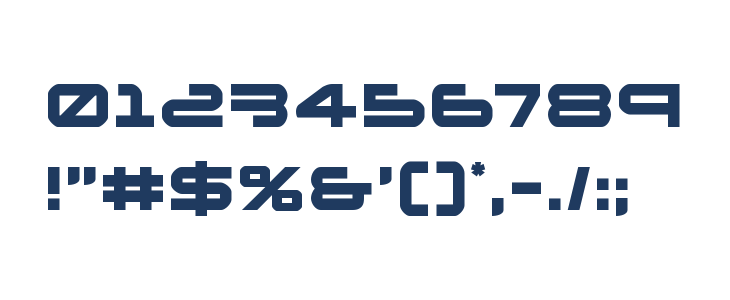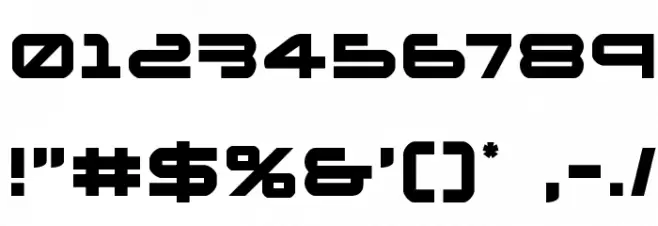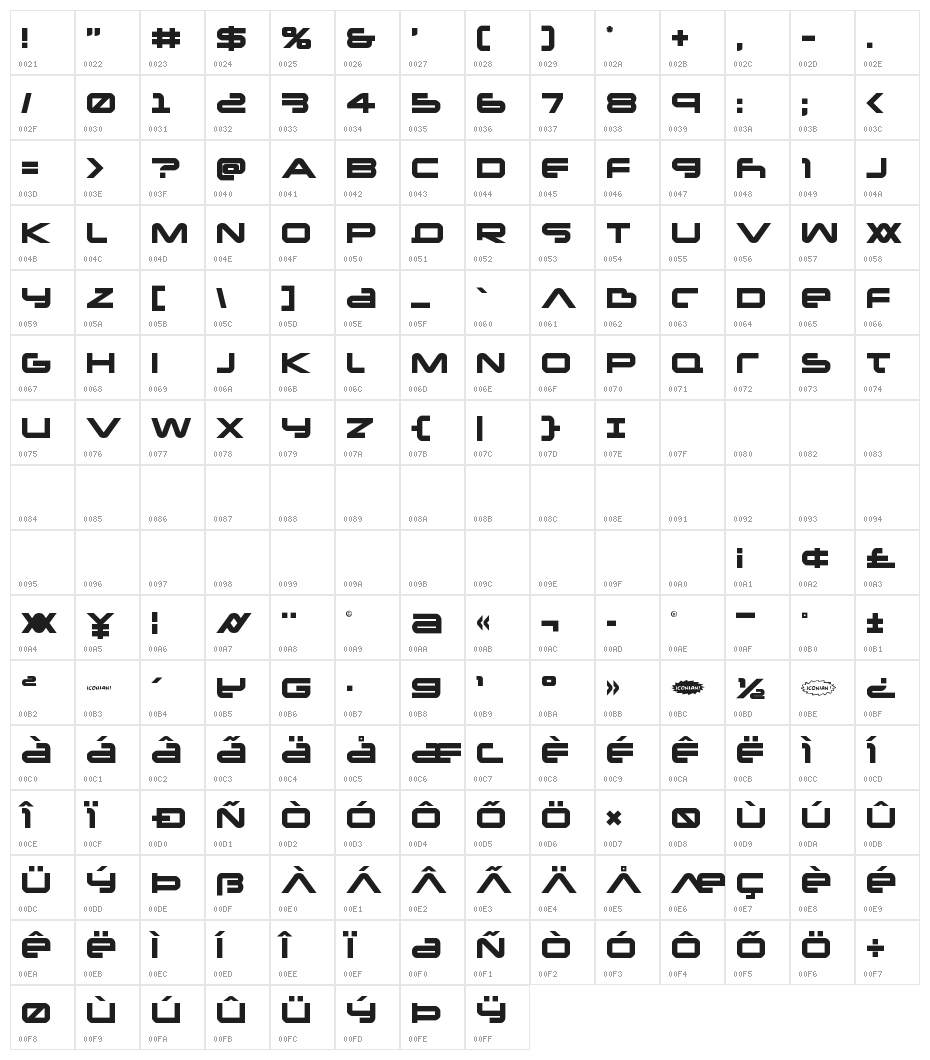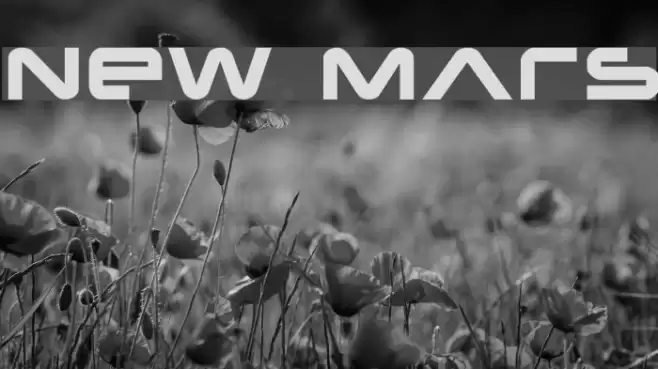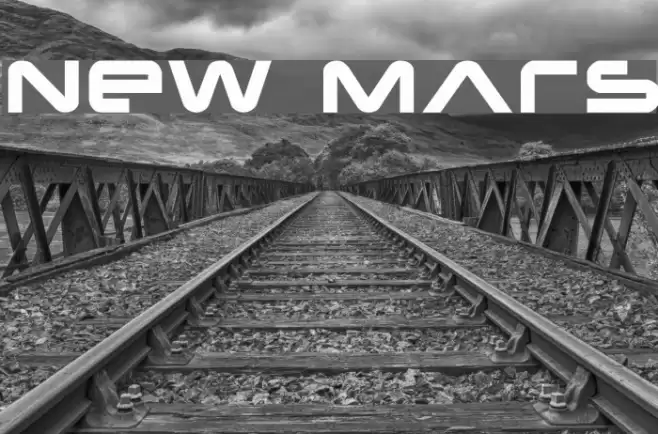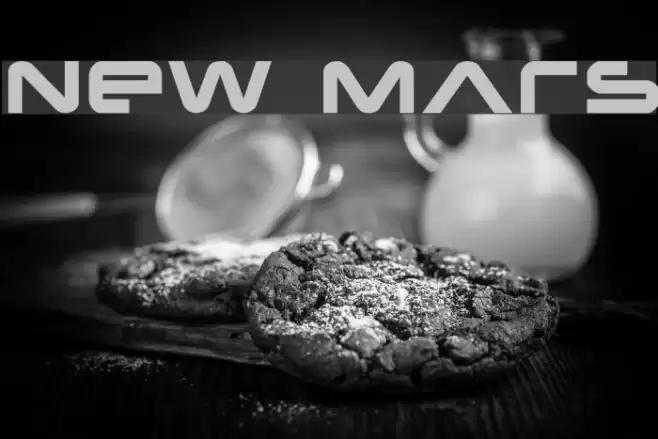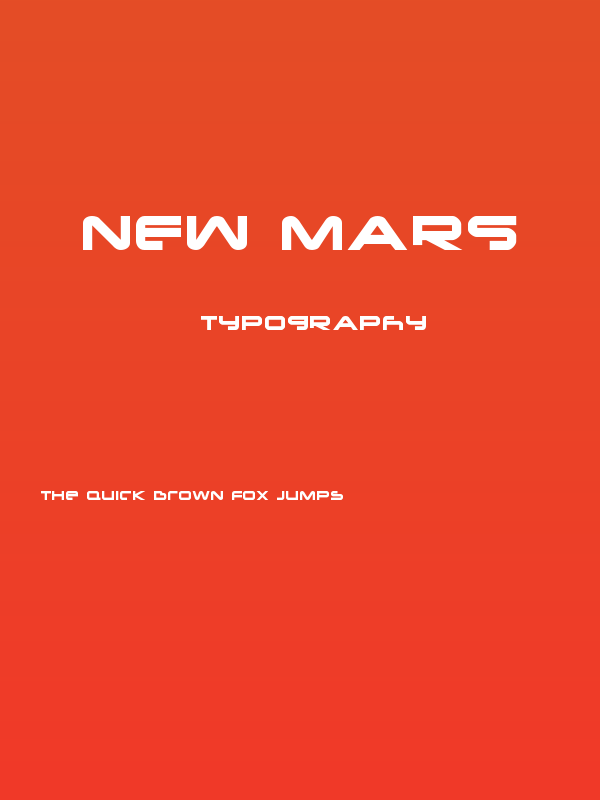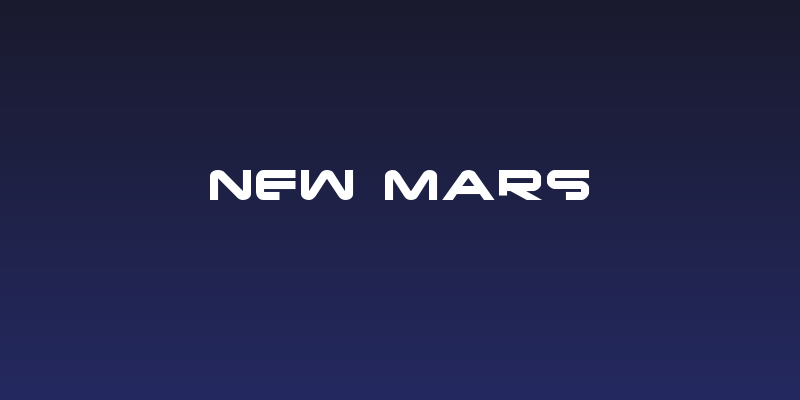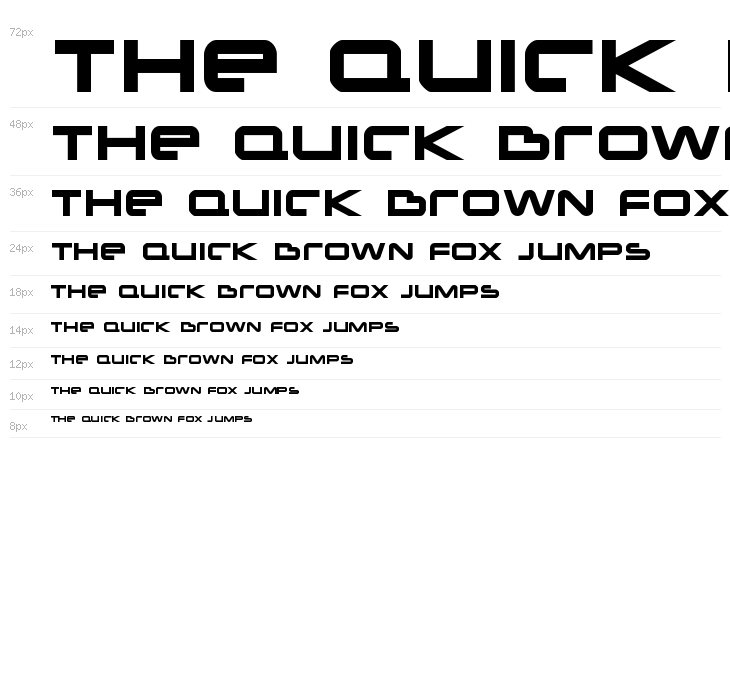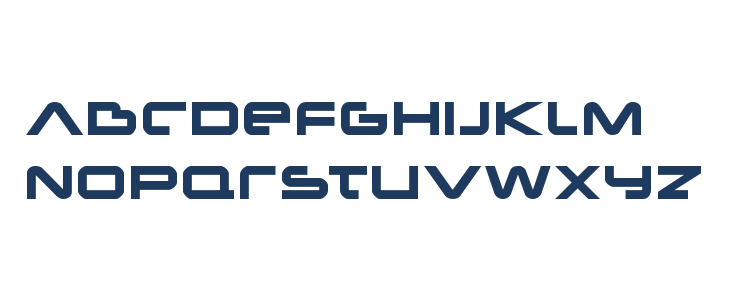
New Mars Font
New Mars Description
This font features a futuristic and geometric design, characterized by its bold and angular letterforms. The uppercase and lowercase letters share a consistent style, with sharp edges and a uniform thickness that gives a modern and tech-inspired appearance. The numerals and special characters maintain this aesthetic, providing a cohesive look across all elements. The font's structure is clean and precise, making it suitable for projects that require a contemporary and innovative feel. Its distinct style is eye-catching and memorable, perfect for making a strong visual impact.
NEW-MARS UPPERCASE
NEW-MARS LOWERCASE
NEW-MARS OTHER CHARS